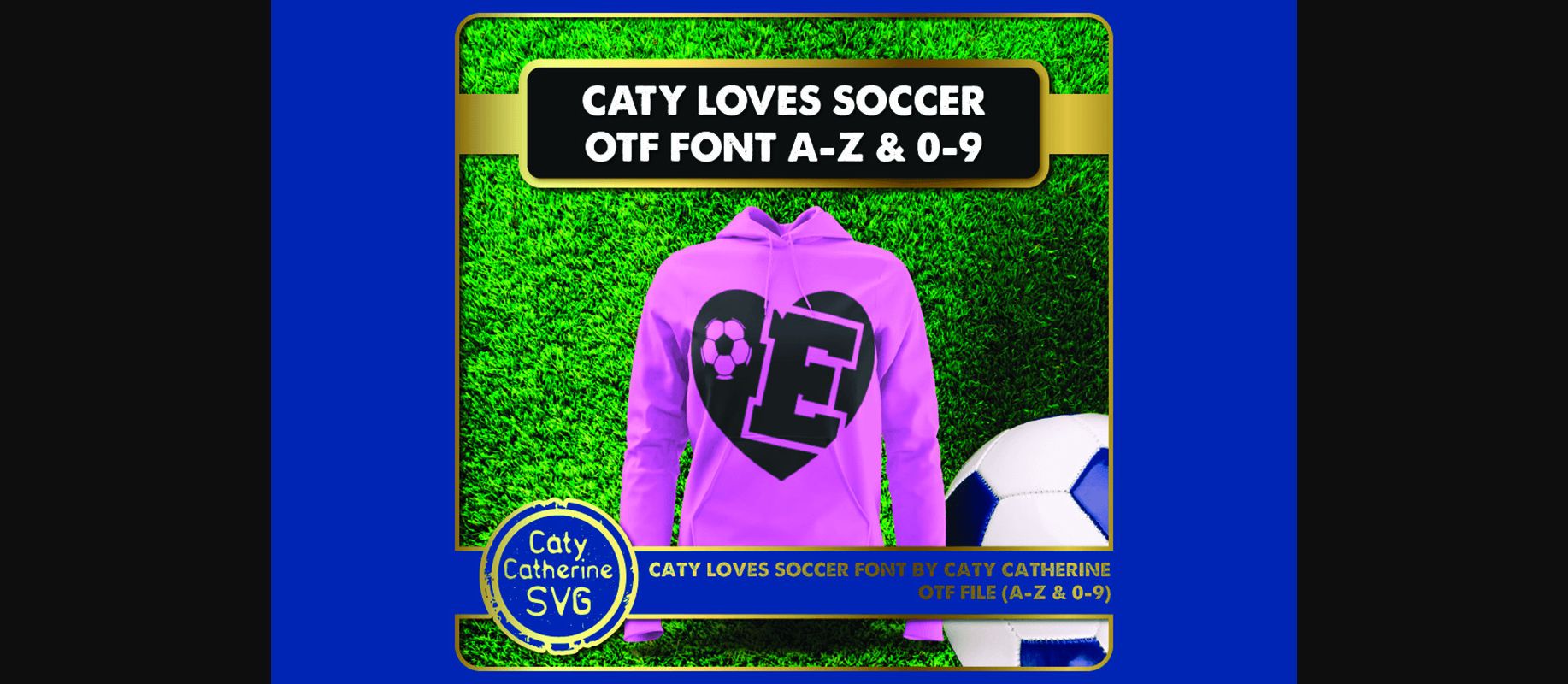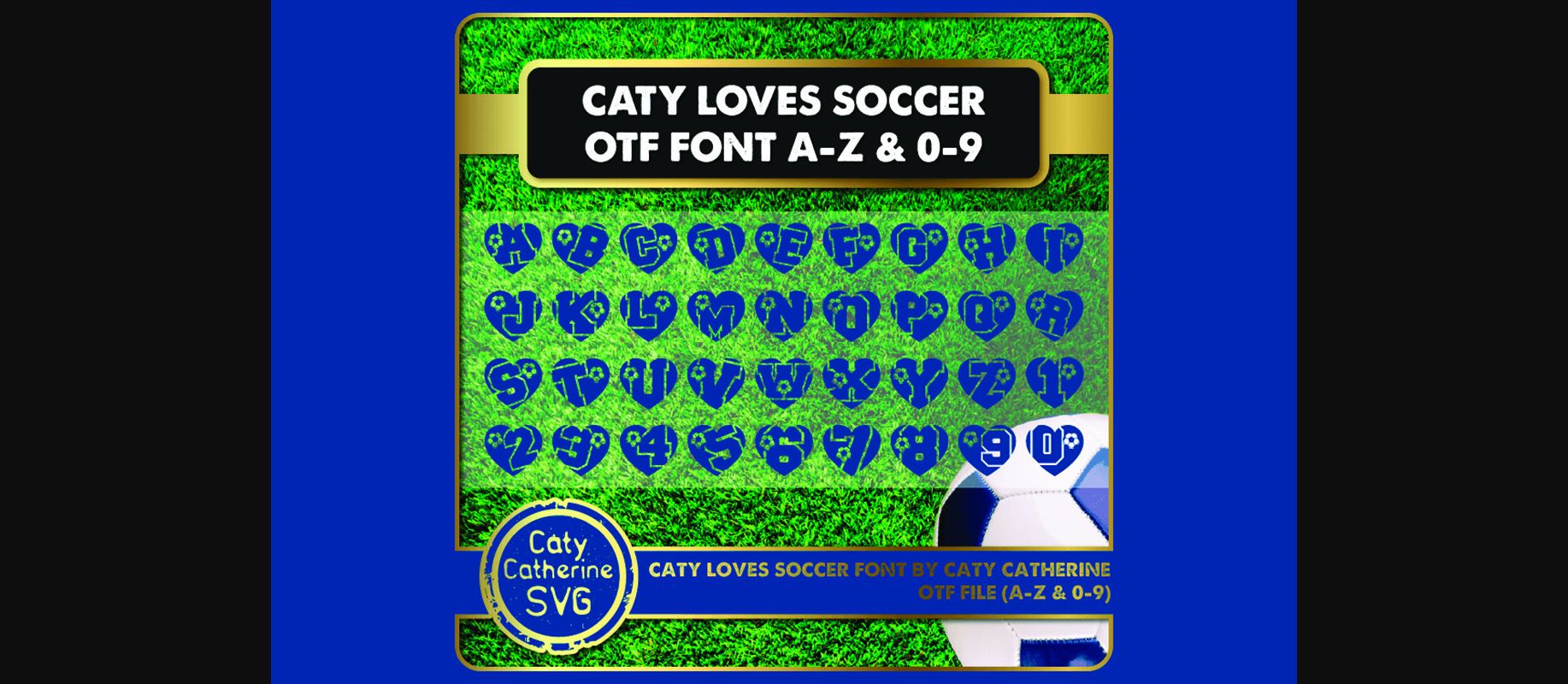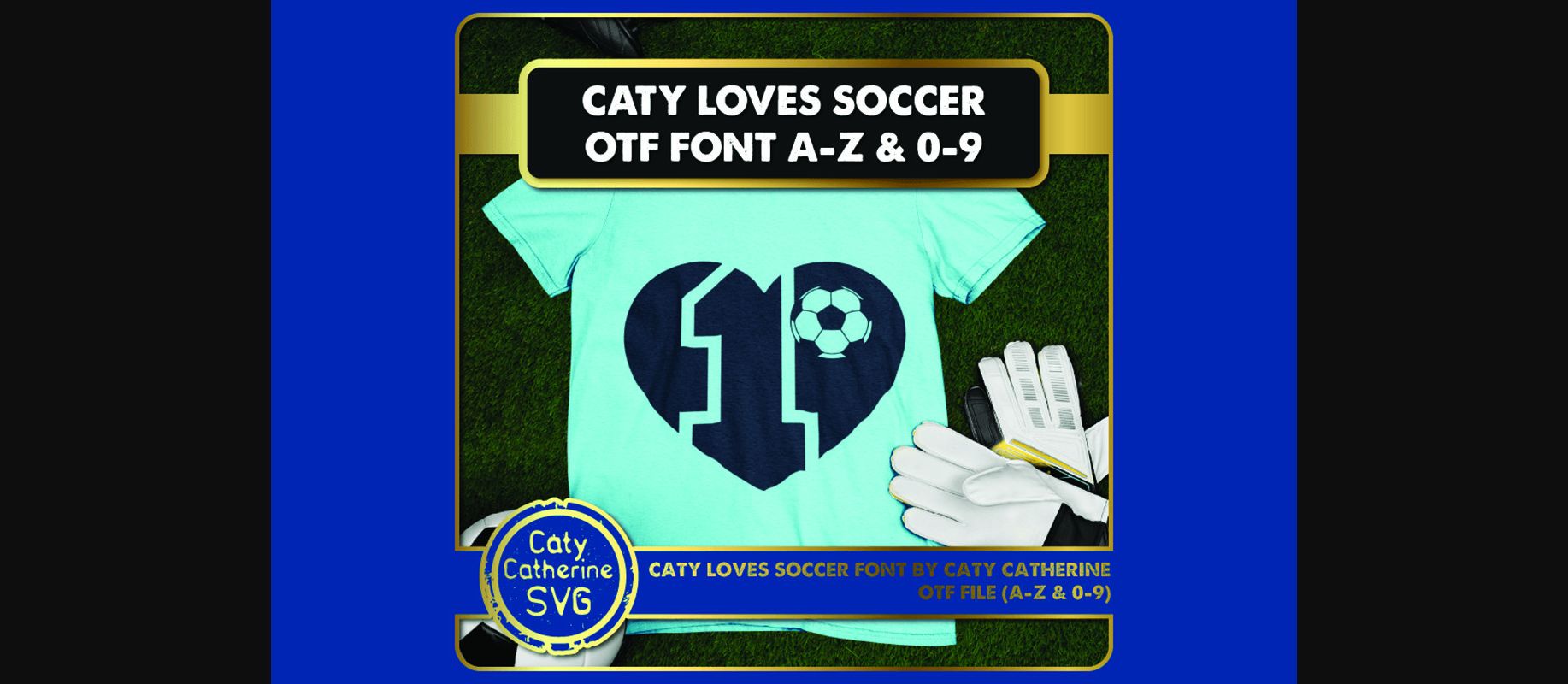
About Caty Loves Soccer Font
Caty loves soccer is a wonderful decorative font featuring soccer balls next to each character. Itβs a great typeface for any soccer-related creative project!